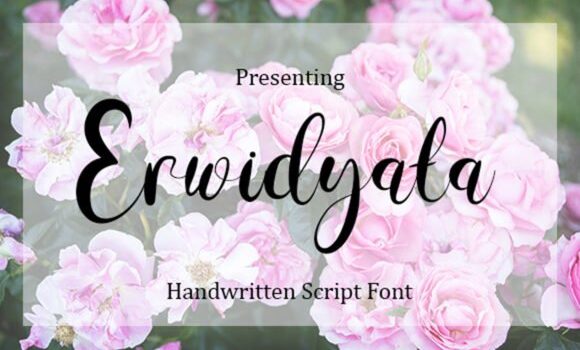
Erwidyata Font – Free Download Introduction to Erwidyata Font Erwidyata is a handwritten font made for packaging products, invitation cards, and all aspects that require high-quality fonts. 📸 Preview Gallery 6 images 📌 Product Name Erwidyata Font 👤 Author Brians.ta